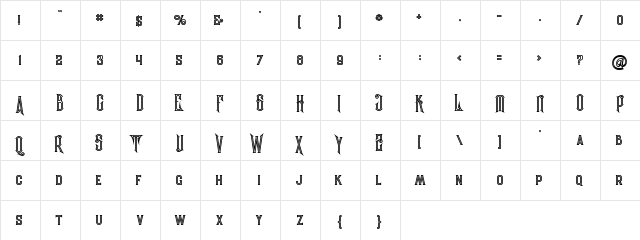
Evolve inline Regular
Design Context for Evolve inline Typeface
Evolve inline is built around its visual character rather than neutral utility — its distinctive forms are designed to make an impression at display sizes.
Font Pairing: Pair with a clean neutral sans-serif for body copy to let Evolve inline's character lead without overwhelming the composition.
Pro Tip: Use Evolve inline exclusively at display sizes — it was designed to be seen, not read at length. Let a neutral companion handle body copy.